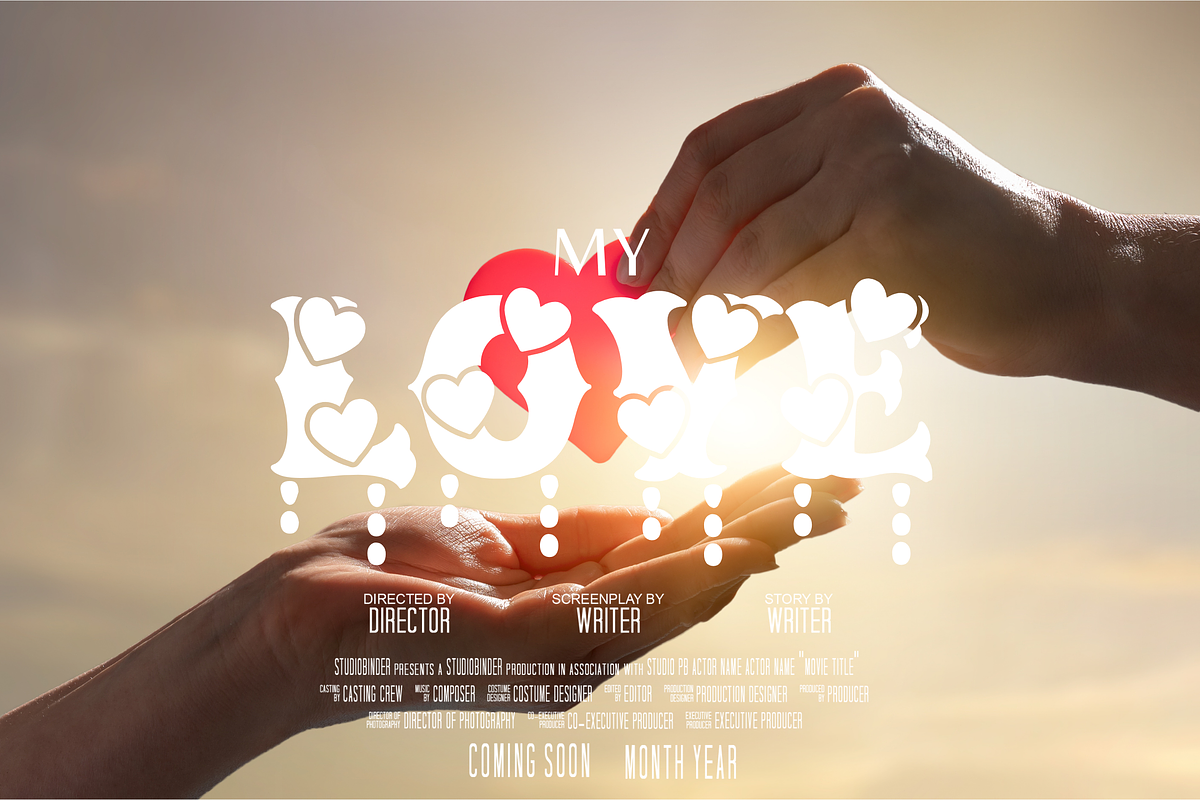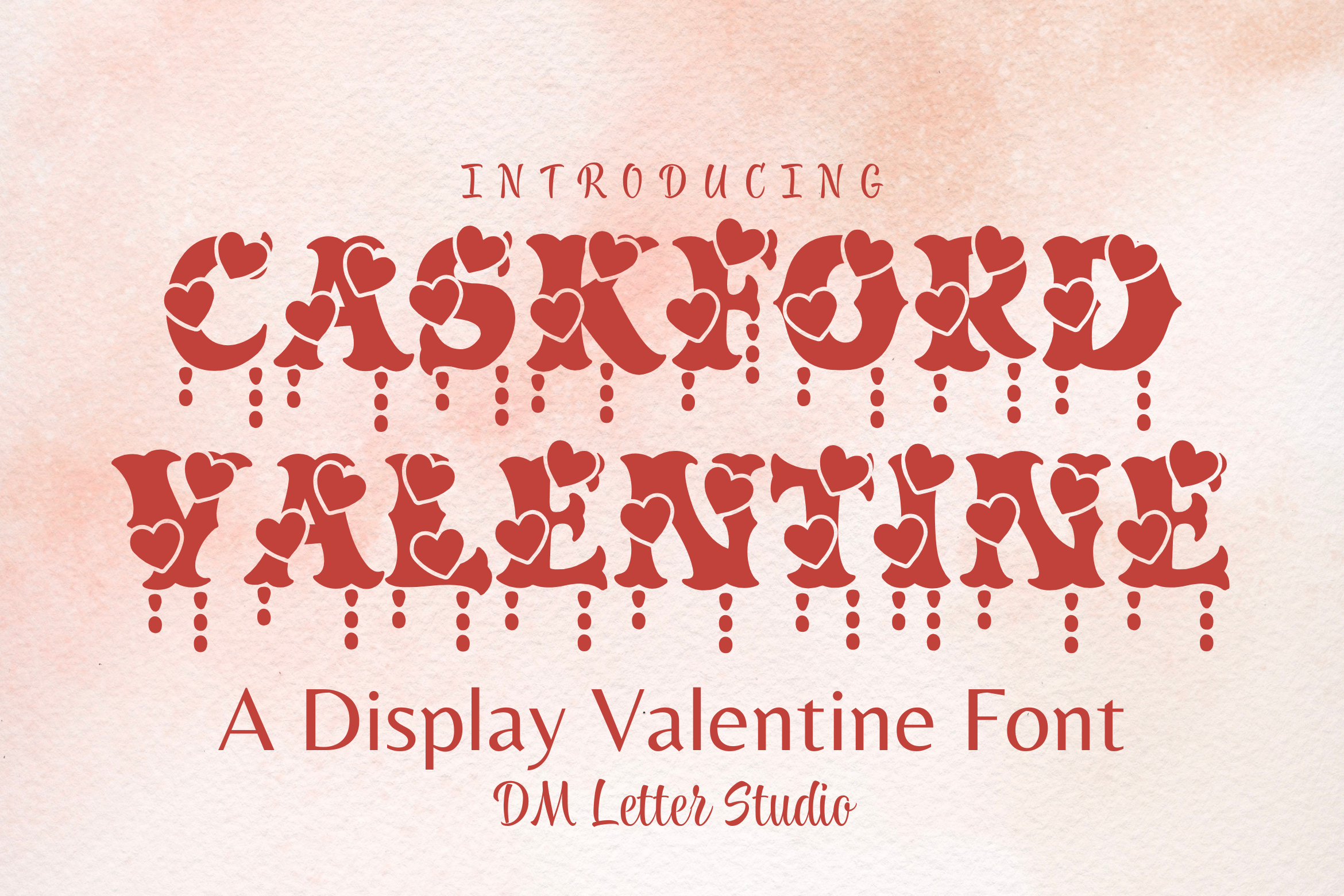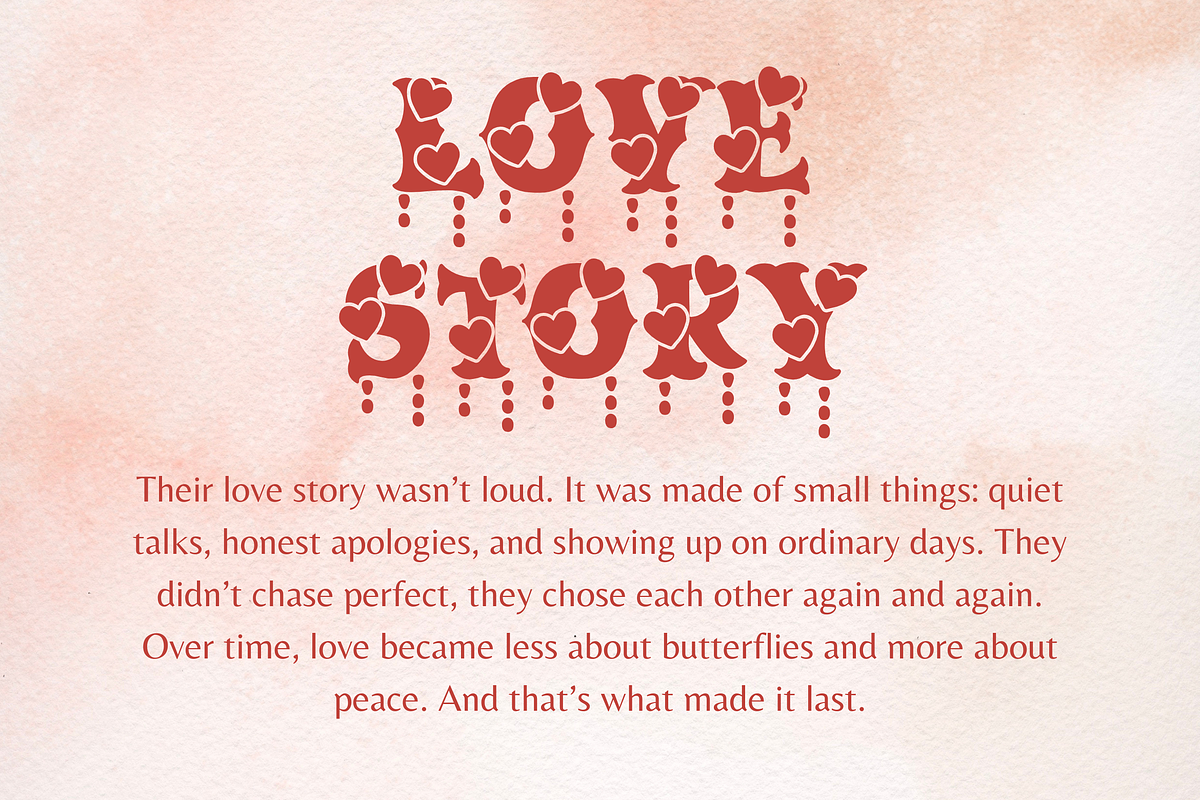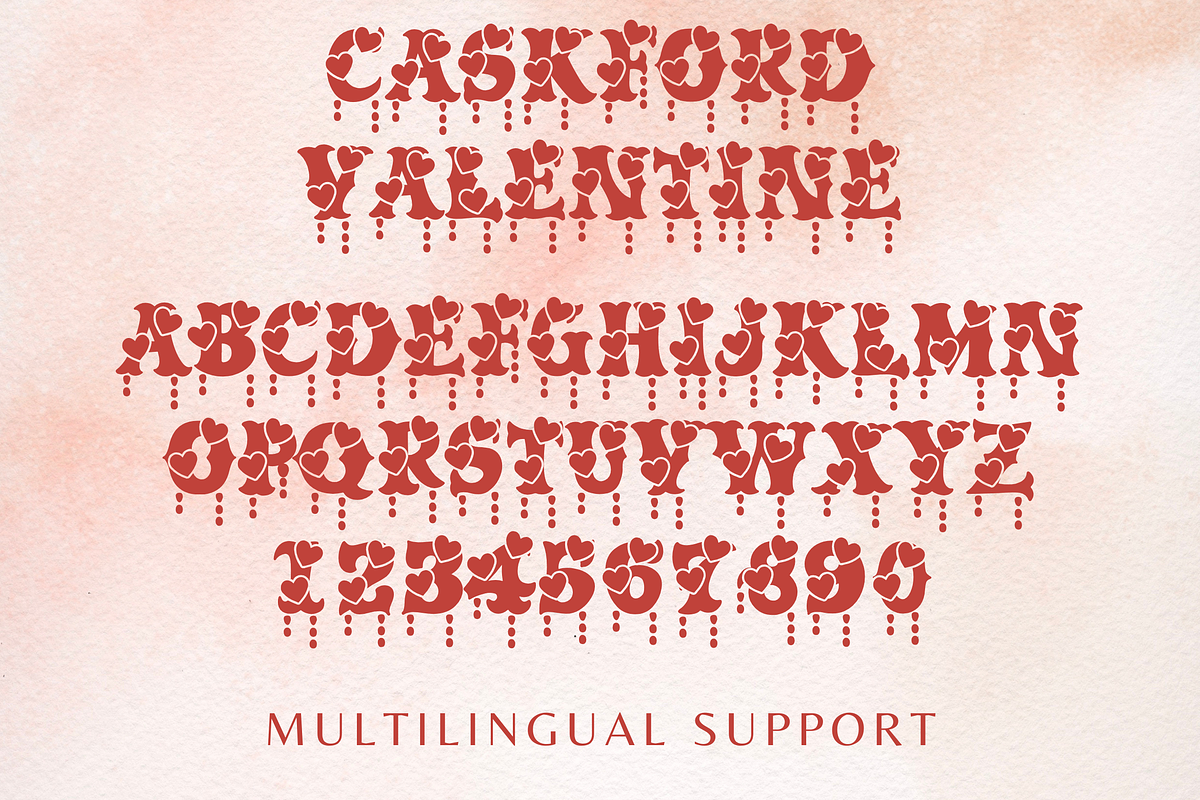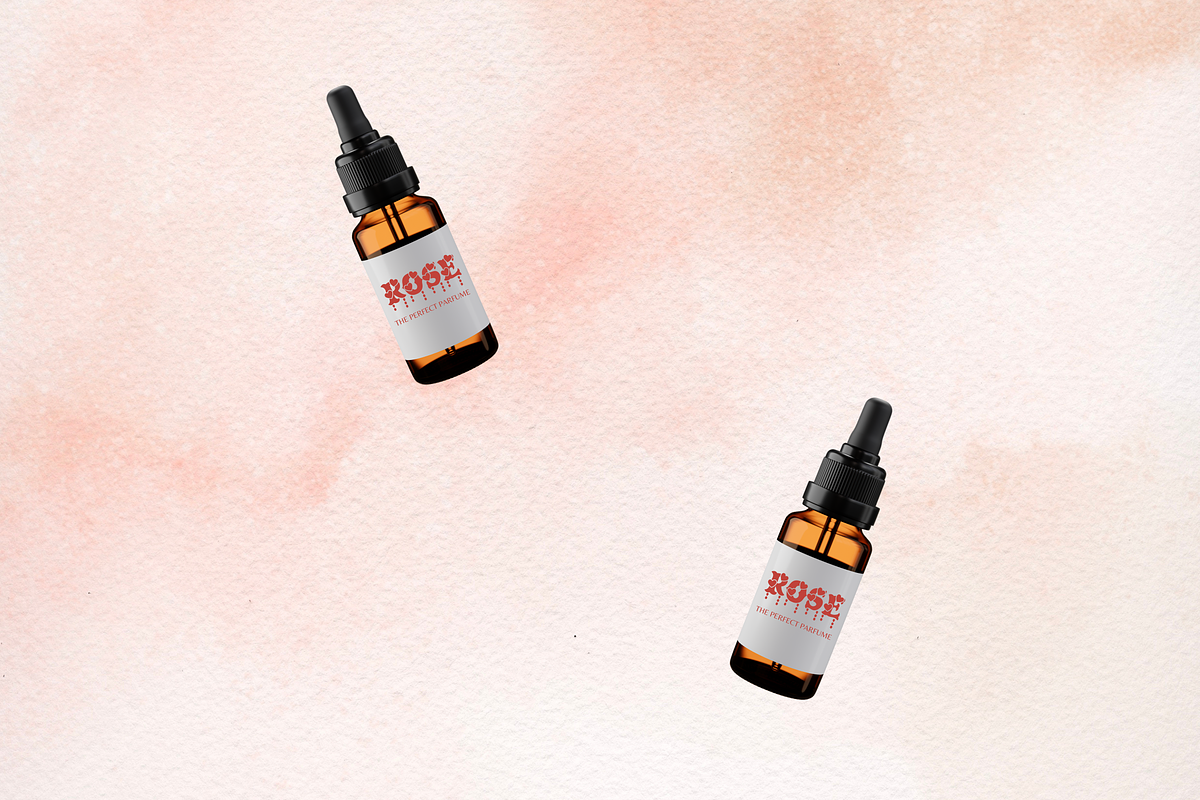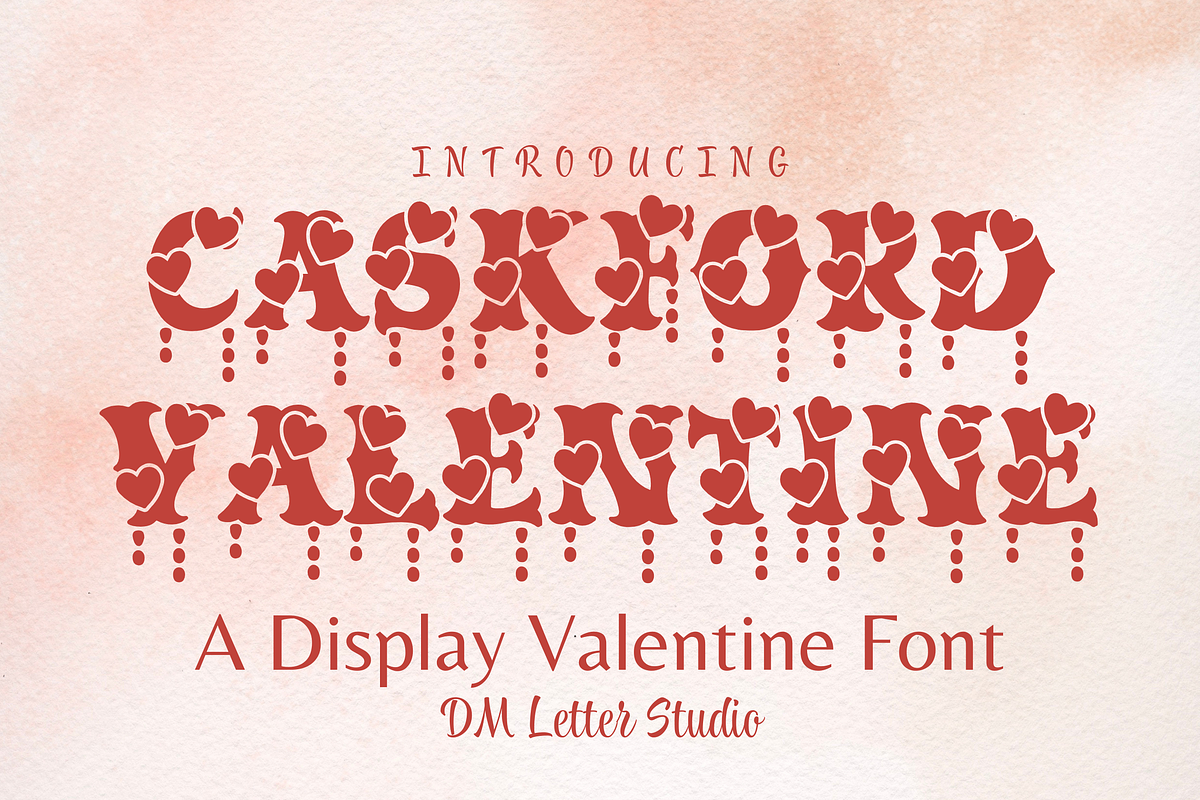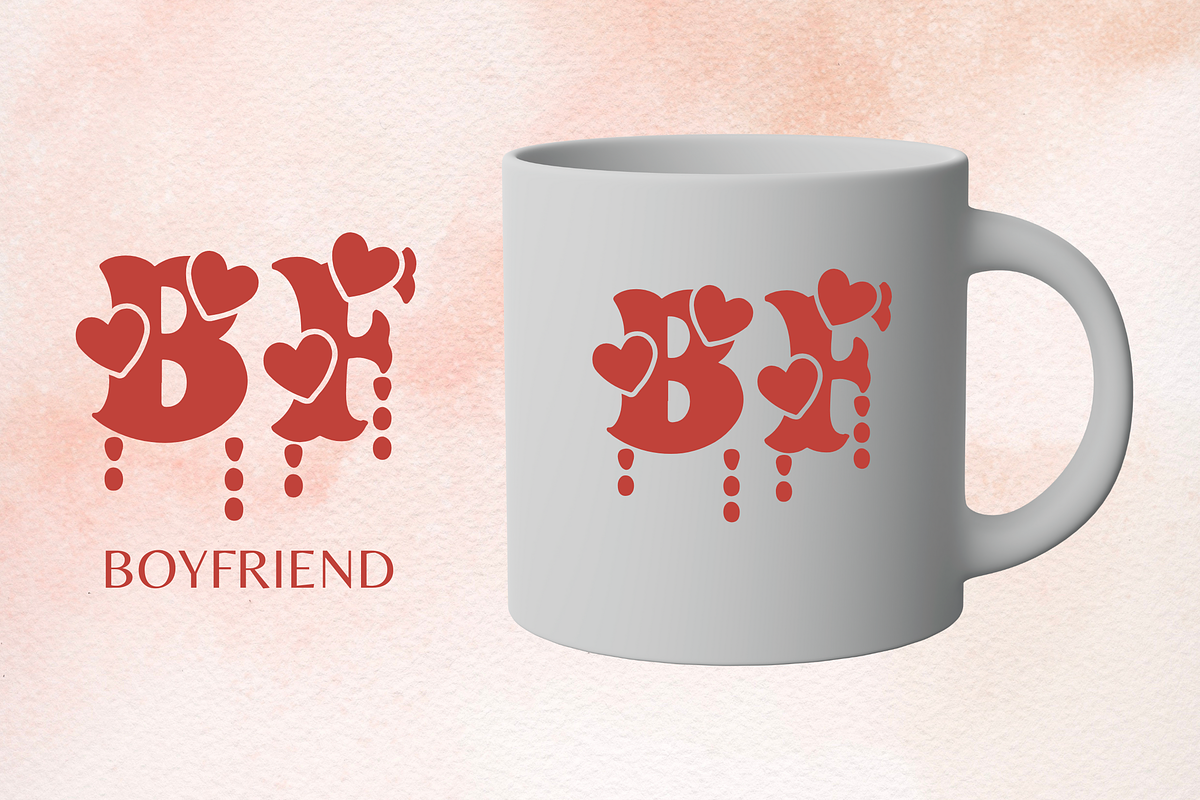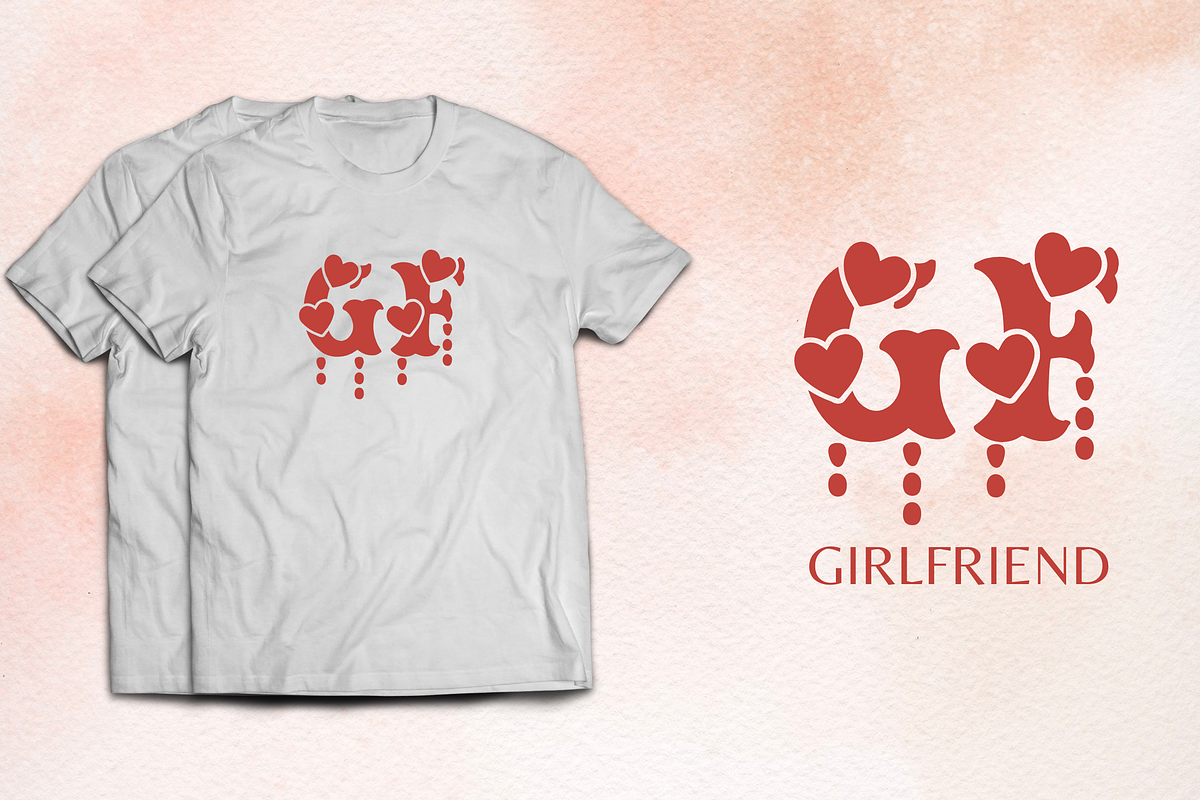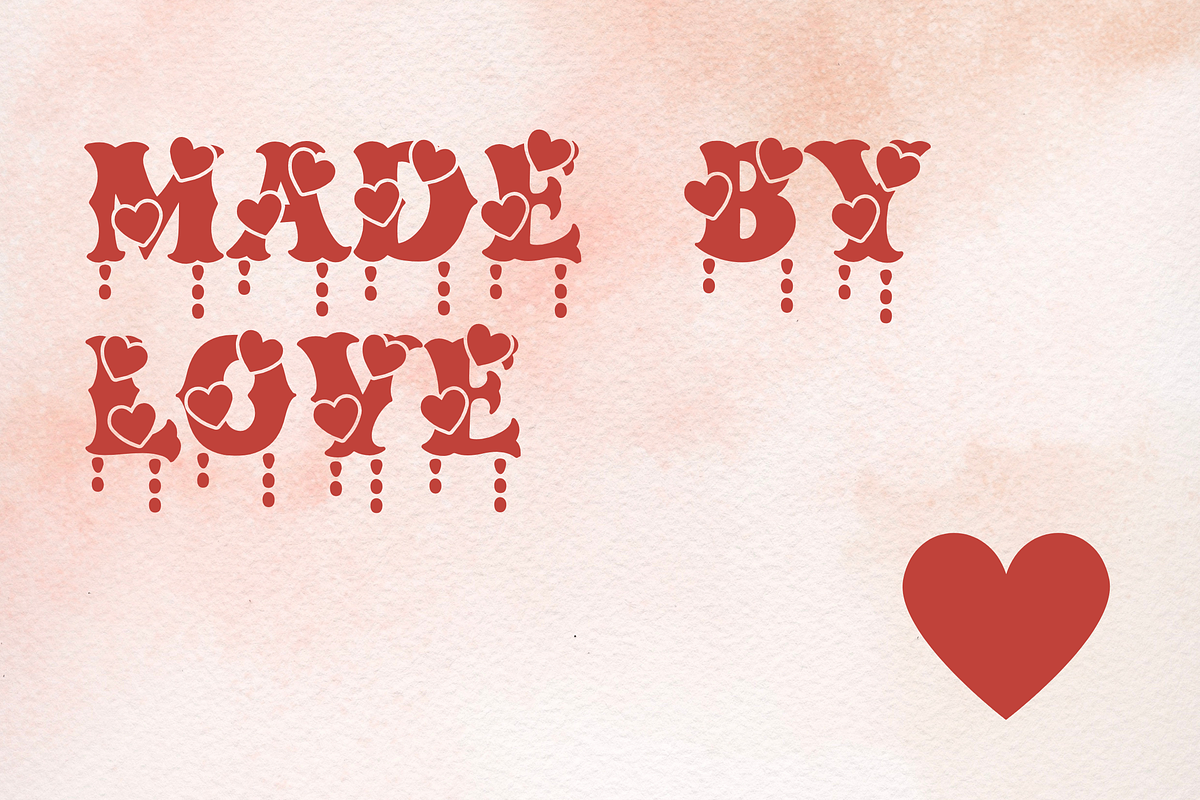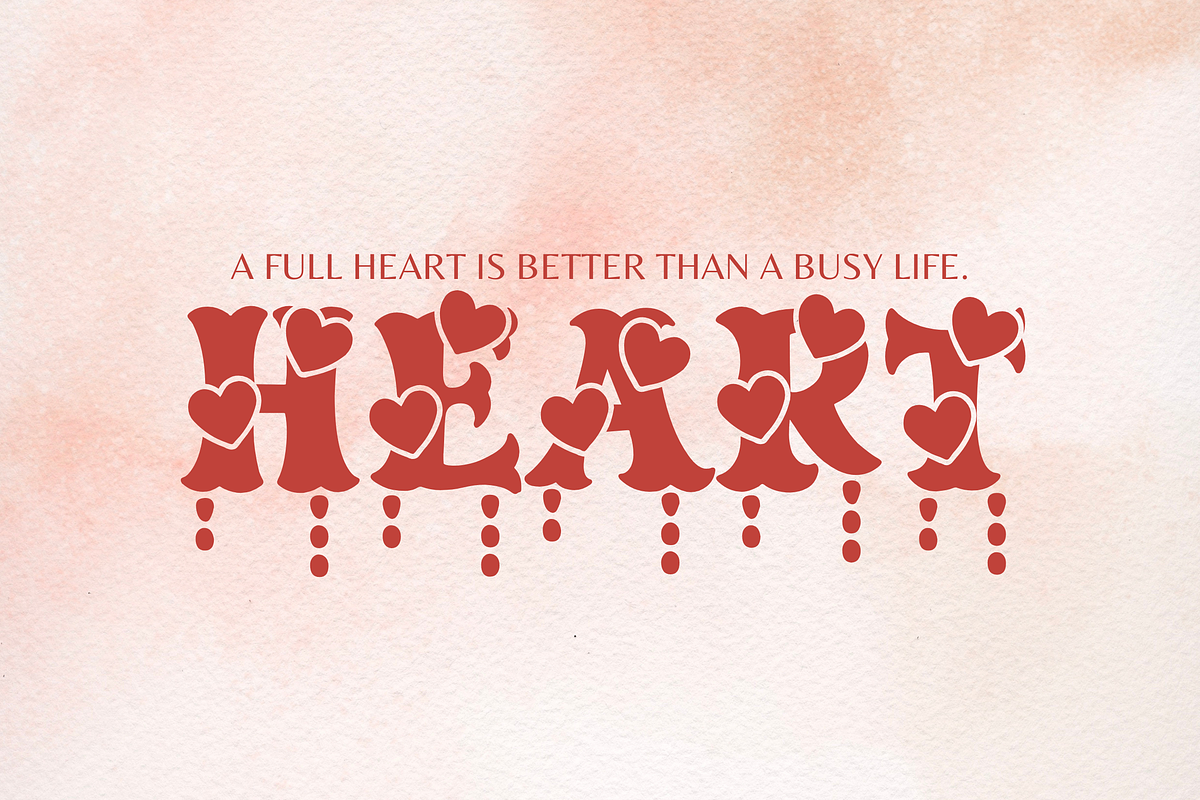
Caskford Valentine Font
Meet Caskford Valentine, the Western Valentine Font
Caskford Valentine Font brings the bold, vintage western spirit of Caskford into a softer, love-themed mood made for Valentine designs. It keeps the strong old-west letter shapes while adding a warmer, romantic feel that works beautifully for seasonal projects. The letters stay bold and readable, so the font looks great on everything from small gift tags to large headlines. Use it for Valentine packaging, cards, posters, apparel, stickers, mugs, and rustic love-themed branding. As a result, your designs feel romantic, bold, and refreshingly different from typical Valentine fonts.
Fast layouts with the Caskford Valentine Font
Start with short, bold words and let the font set the tone. After that, add supporting text in a clean serif or simple sans font. Because Caskford Valentine has strong structure, it works well in badges, arches, and label-style layouts. In addition, it shines on heart frames, rustic borders, and vintage sign compositions. Finally, try color pairs like blush & cream, burgundy & ivory, rose & charcoal, or pink & kraft to lock in the Valentine vibe.
Creative uses and quick wins
- Valentine cards, posters, and greeting designs
- Gift labels, stickers, and packaging
- Apparel designs for shirts, hoodies, and totes
- Seasonal merch, mugs, and printable quotes
Uppercase, numbers, punctuation
Design tips for Caskford Valentine Font
Keep phrases short so the bold shapes stay clear. Also, balance the strong western style with softer colors or subtle textures. For print, try uncoated or kraft paper for a handmade romantic feel. Finally, export at 300 DPI for print and at 2× size for web so everything stays crisp.